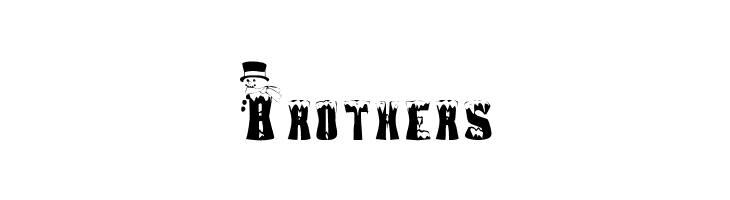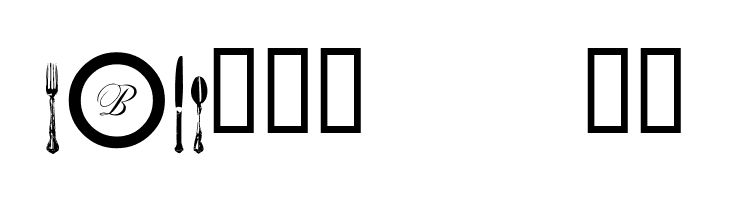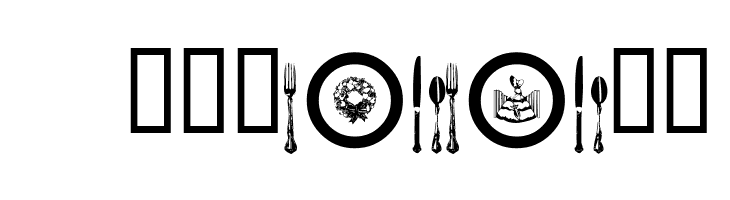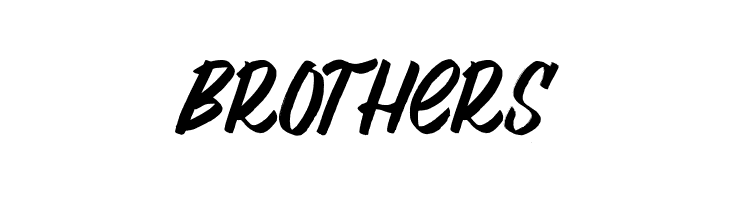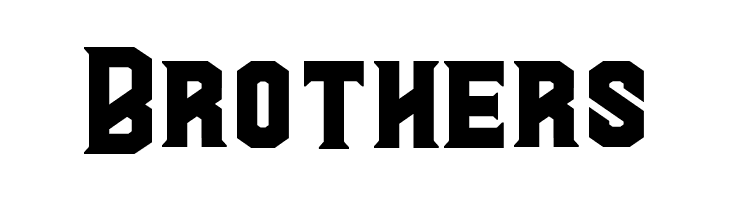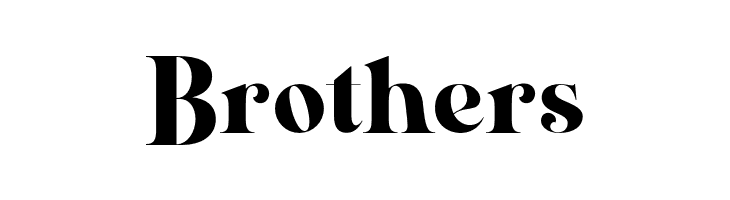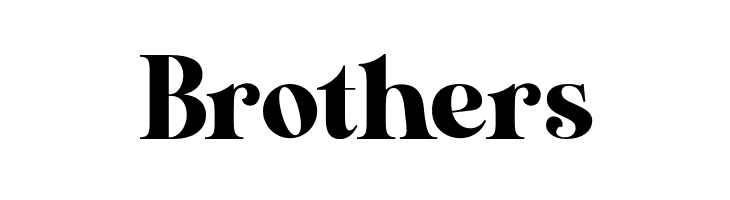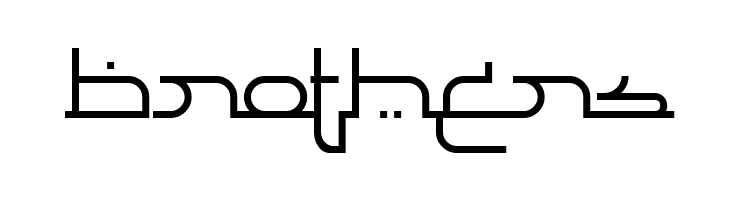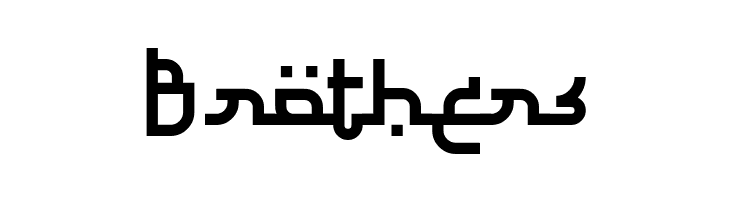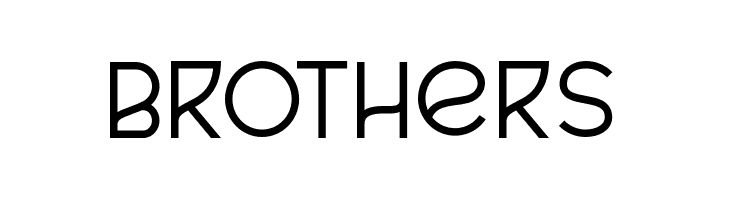
A playful, casual handwritten font with smooth, rounded strokes.
A modern, geometric font with a futuristic and minimalistic design.
A playful, helmet-themed font with rounded, cartoonish characters.
A bold, geometric font with decorative elements and a modern-retro vibe.
A bold, high-contrast serif font with a classic yet modern appeal.
An ornate, decorative font with floral embellishments and calligraphic elements.
An elegant script font with intricate swirls and a classic calligraphic style.
A bold, angular font with a modern and edgy style.
A bold, geometric font with sharp angles and a modern, edgy style.
A modern, geometric font with clean lines and angular design.
A modern, geometric font with clean lines and sharp angles.
A bold, dynamic script font with a handwritten style.
A bold, dynamic handwritten font with a brush-like texture.
A bold, brush-style script font with dynamic and expressive strokes.
A bold, high-contrast serif font with a vintage yet modern style.
A bold, high-contrast serif font with dramatic serifs and elegant style.
A bold, high-contrast serif font with dramatic strokes and elegant serifs.
A bold, modern font with geometric shapes and clean lines.
A bold, decorative font with a distressed, vintage texture.
A cursive, handwritten font with elegant loops and fluid strokes.
A graceful, flowing script font with elegant, connected strokes.
A bold, gothic-inspired font with sharp, angular edges and intricate detailing.
A bold, angular Blackletter-inspired font with intricate detailing.
A lively and expressive script font with dynamic, flowing letterforms.